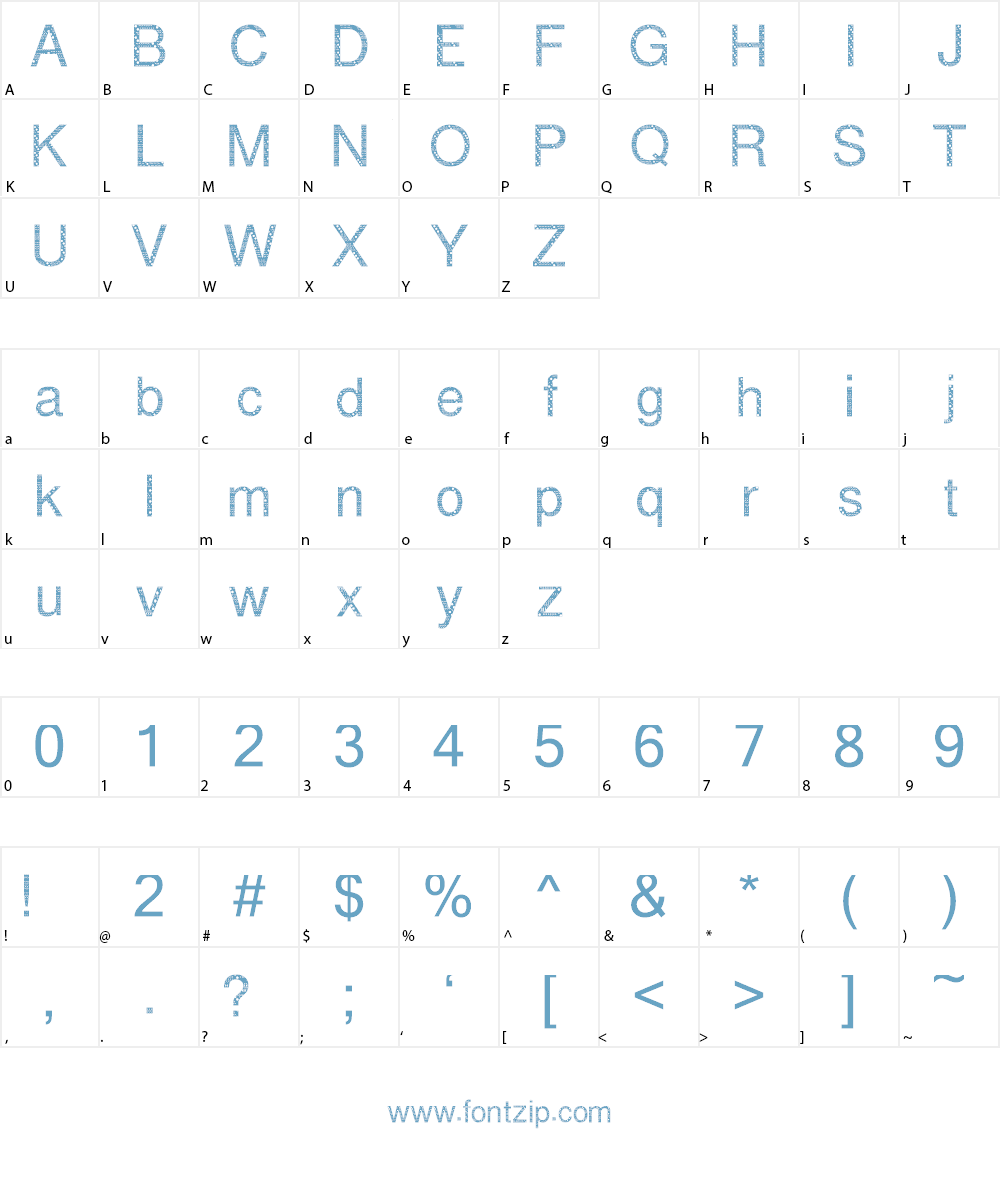
This font is made for a school group project. This font can produce printed texts that are indistinguishable from Arial from 16 inches away (normal reading range), while saving up to 21% of ink consumption. As it still on beta, numerical characters and punctuations are still not included. The glyphs are based on FreeSans Font.